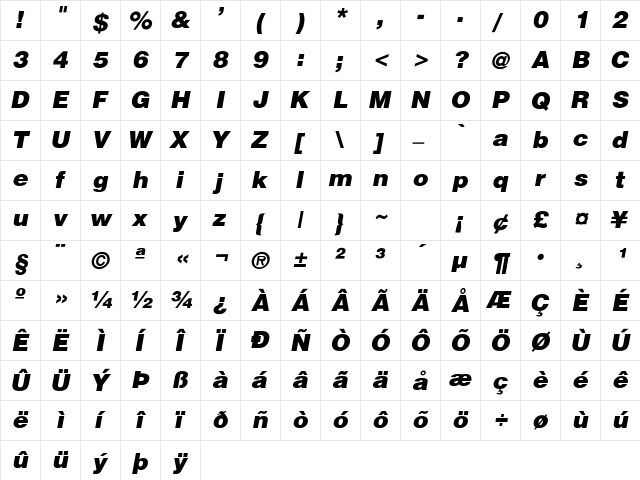
Helvetica-BlackItalic Regular
Design Context for Helvetica-BlackItalic Typeface
Helvetica-BlackItalic is a composed and adaptable typeface that performs quietly and consistently across a wide range of design contexts. Its italic angle brings a sense of urgency and motion to the letterforms.
Pro Tip: Use Helvetica-BlackItalic for emphasis, pull quotes, and subheadings where its slanted energy can add rhythm to the layout.